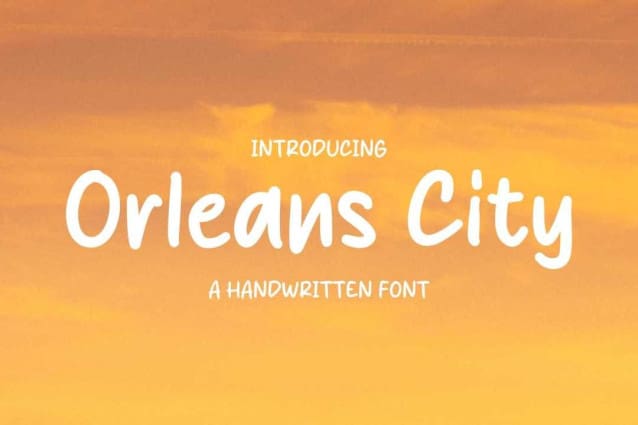
Orleans City Font
Orleans City Font is a handwritten comic/cartoon-style font. Masterfully designed to become a true favorite, this font has the potential to bring each of your creative ideas to the highest level!